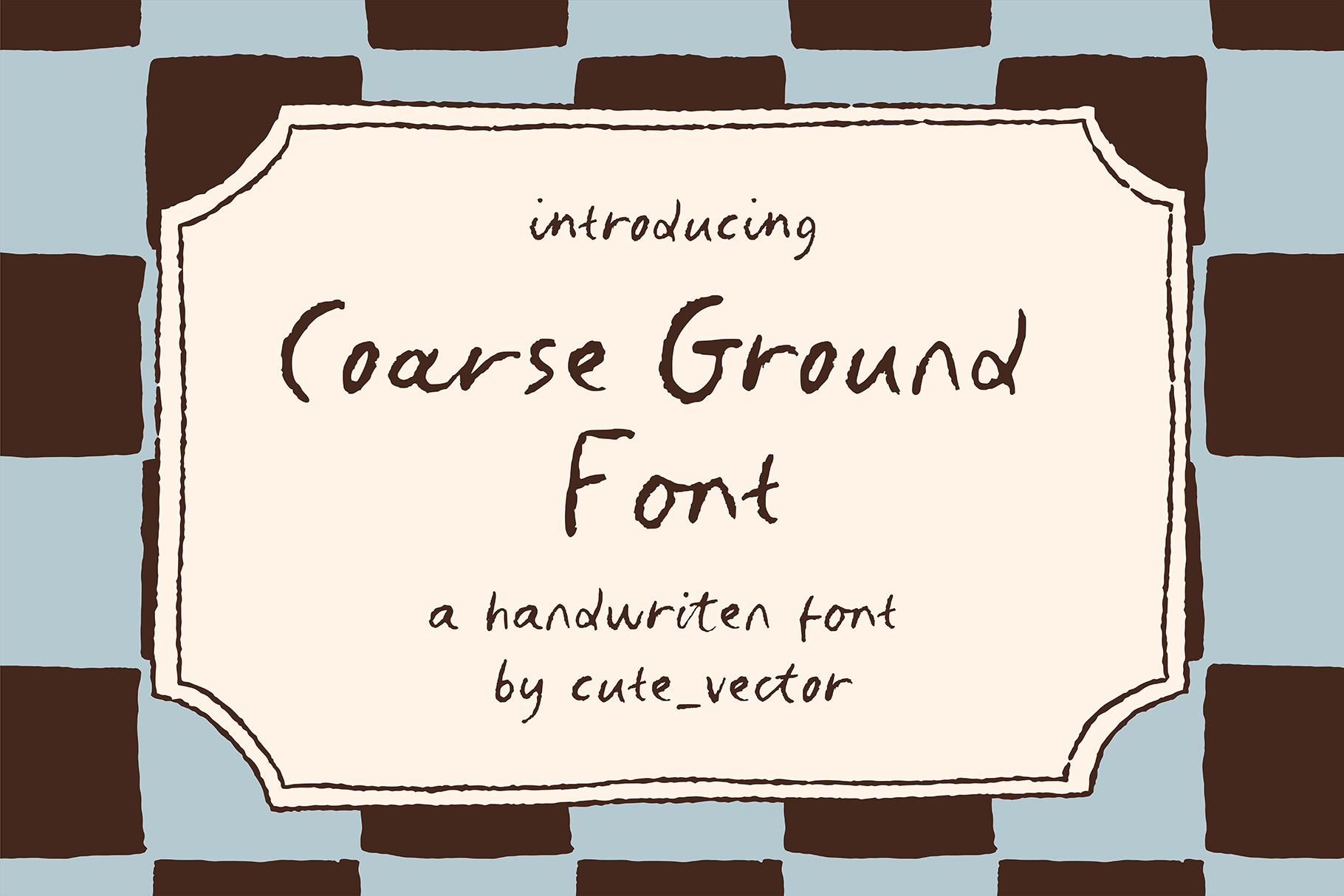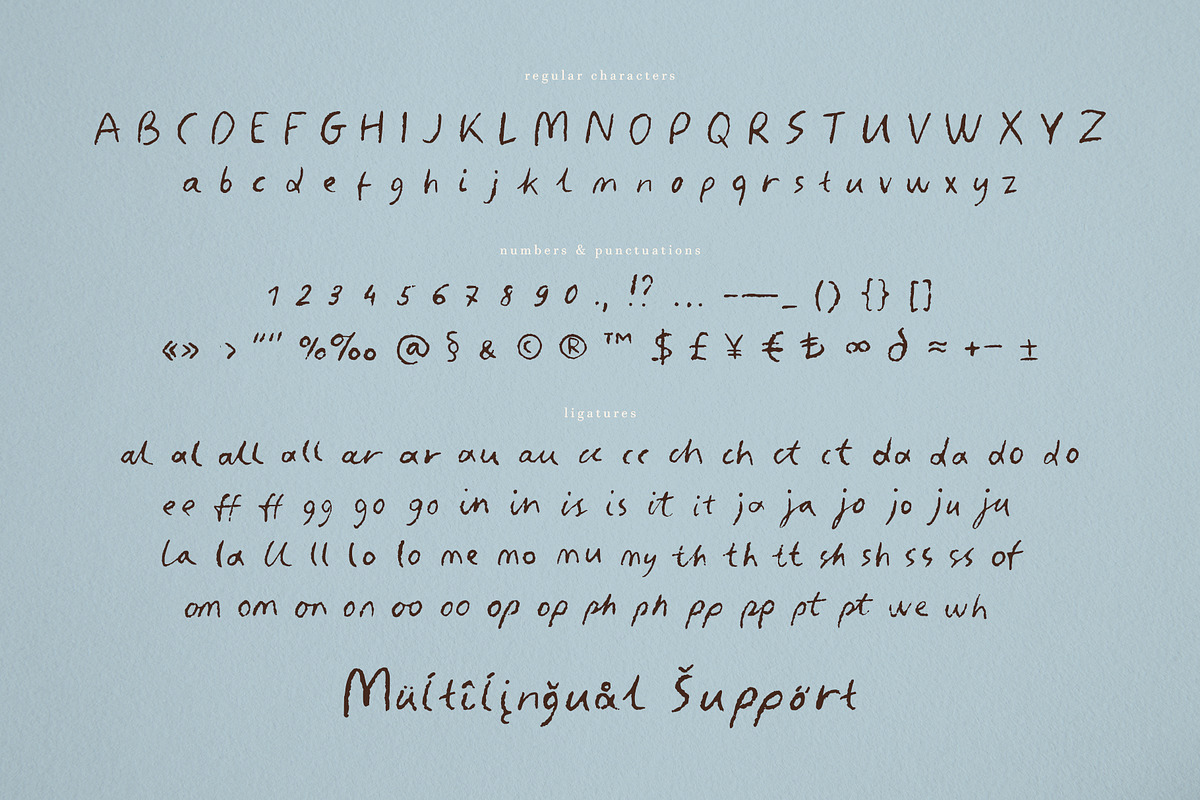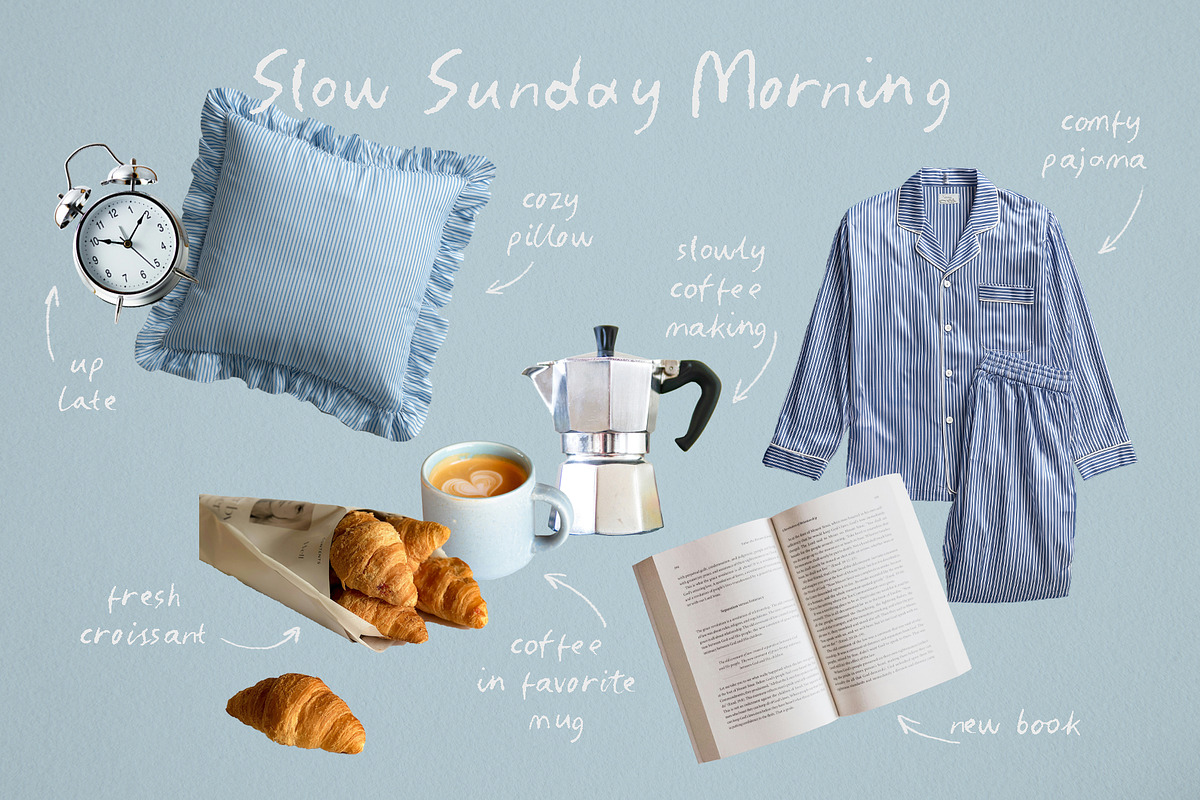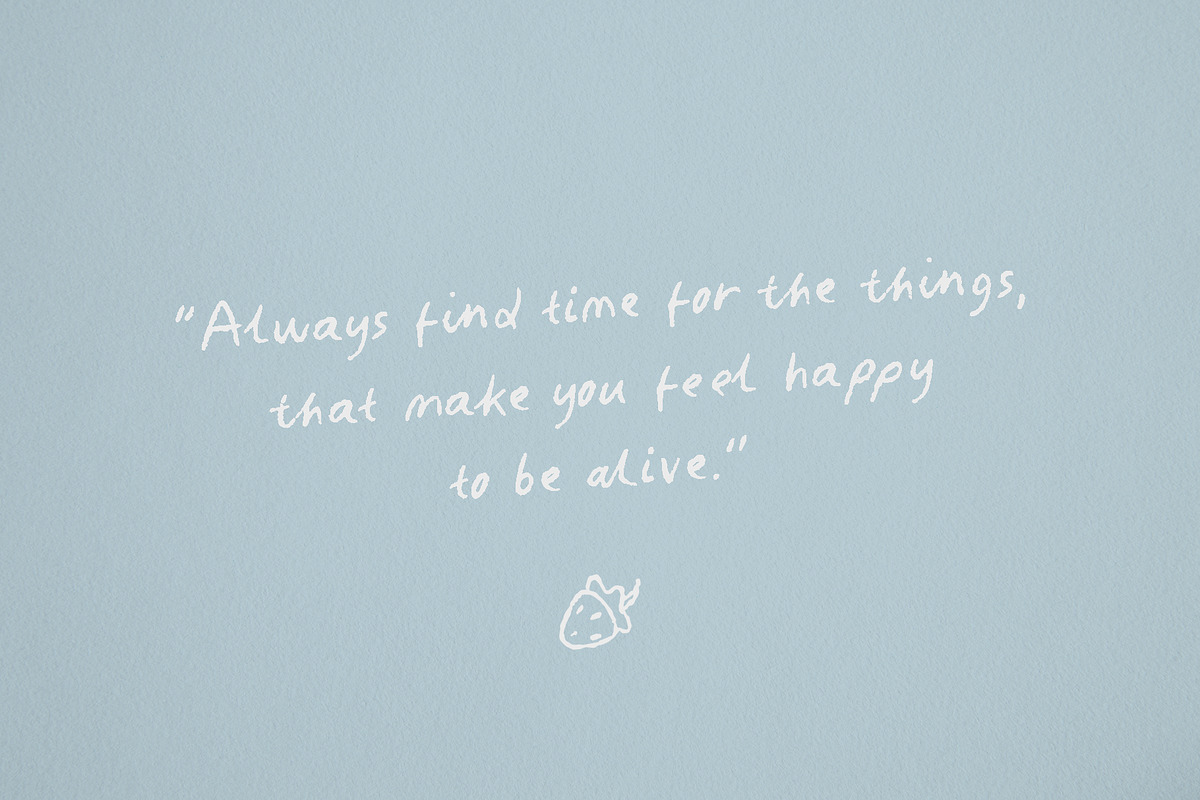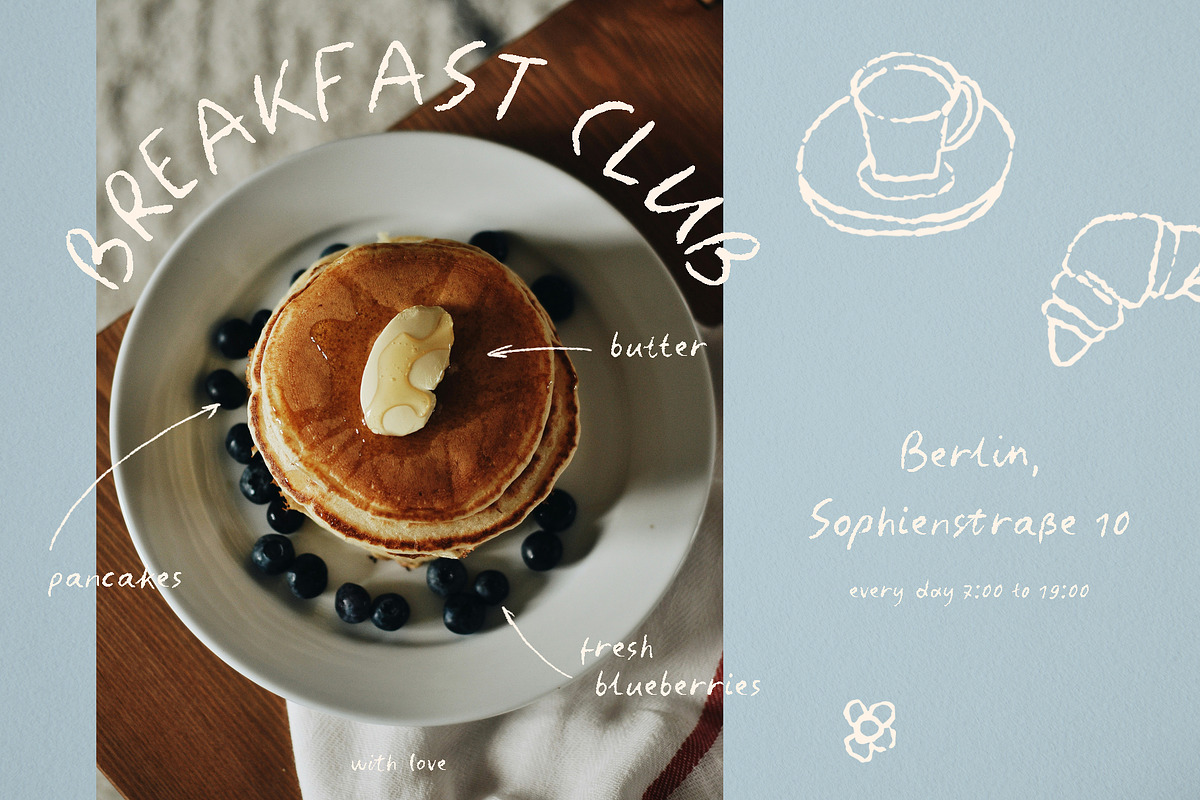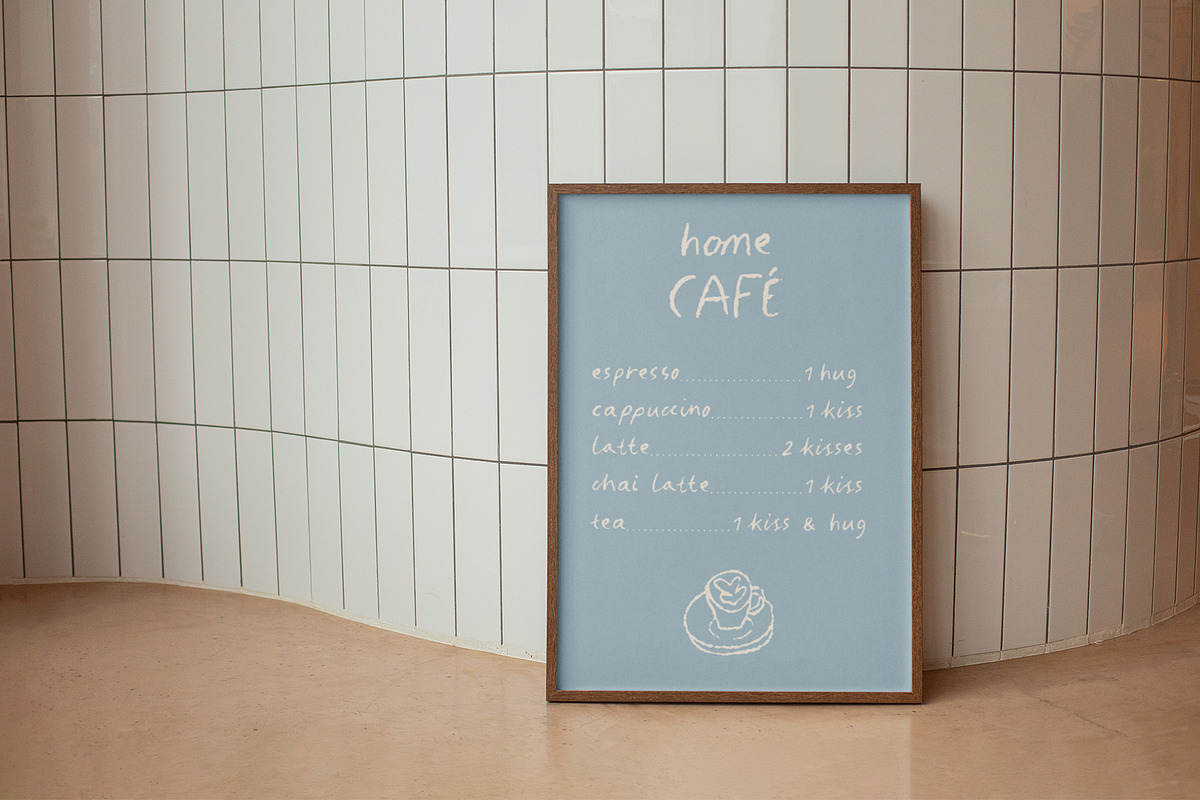
Coarse Ground Handwritten Font
Coarse Ground is a soft, handwritten display font inspired by slow coffee mornings, cozy routines, and simple everyday moments. Coarse Ground brings warmth and authenticity to your designs.
With its natural, slightly imperfect strokes, this font feels warm, personal, and effortlessly charming - like notes written in your favorite journal.
Perfect for creating gentle, lifestyle inspired designs with a human touch. It works beautifully for: cozy branding, café menu, bakery visuals, lifestyle content, social media posts, quotes & mood boards, packaging, planners and journals, wedding invitations.
Add warmth, whimsy softness, and authenticity to your designs with Coarse Ground.